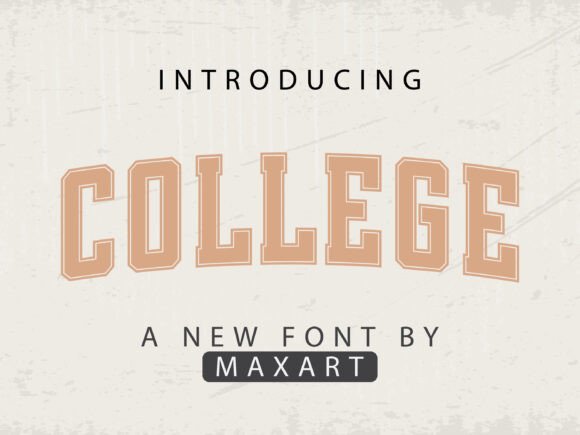
College Font
College is ideal for branding any professional project, including T-shirts, logos, and more. It’s perfect for sports-themed designs or web graphics. This serif font features a complete set of sporty uppercase letters and stylish lowercase script, along with numerals, punctuation, and other symbols for versatile use.